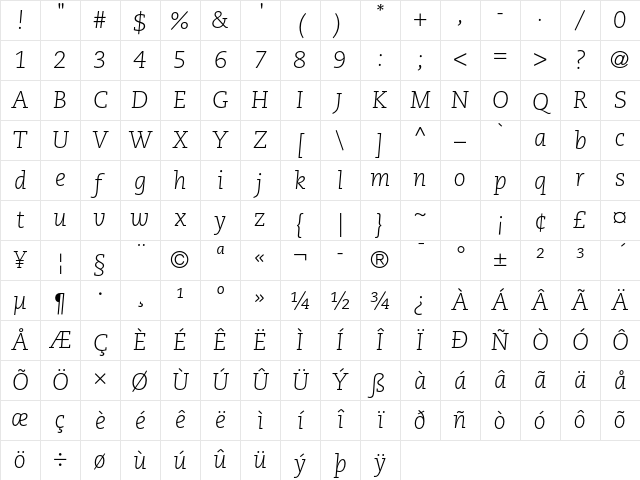
Caecilia LT Std 46 Light Italic
Style: 46 Light Italic
Designer: Peter Matthias Noordzij
Design Context for Caecilia LT Std
Caecilia LT Std is a composed and adaptable typeface that performs quietly and consistently across a wide range of design contexts. The slanted form adds forward momentum and visual energy. Its slender proportions lend an understated elegance to any composition.